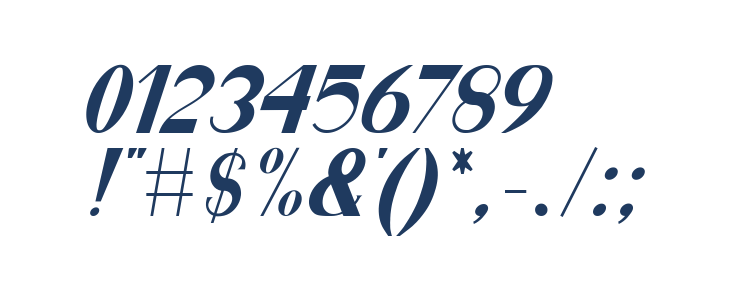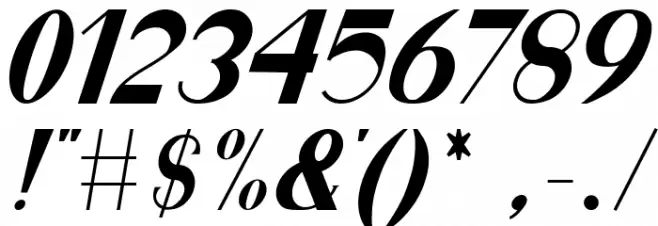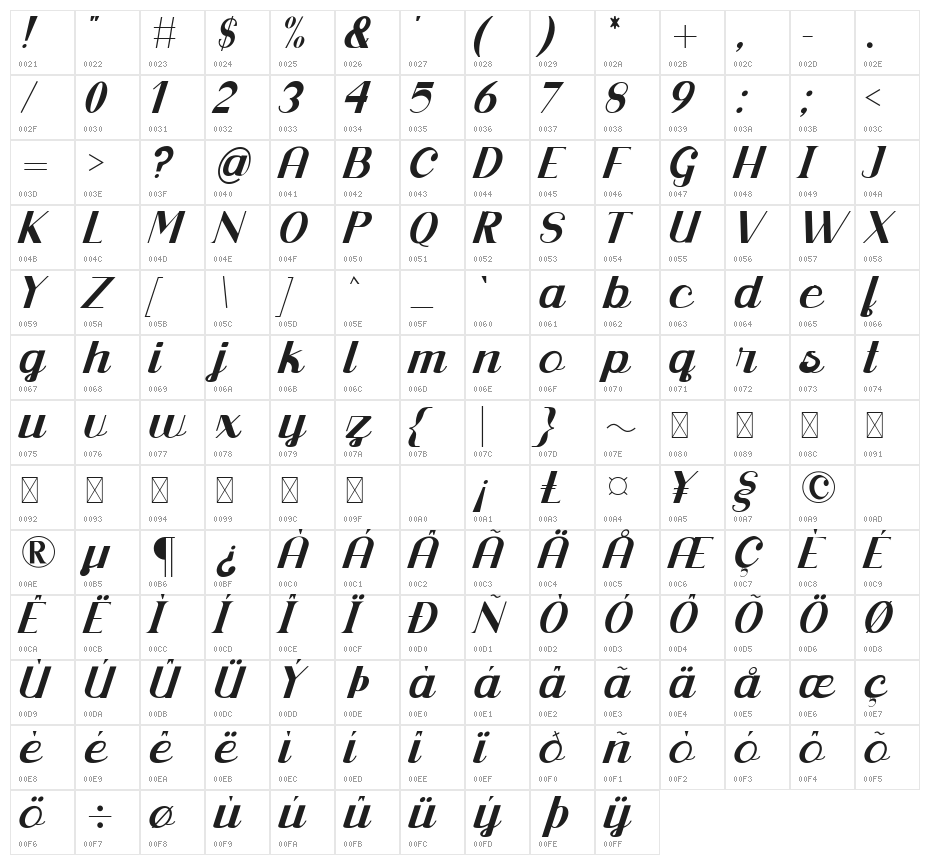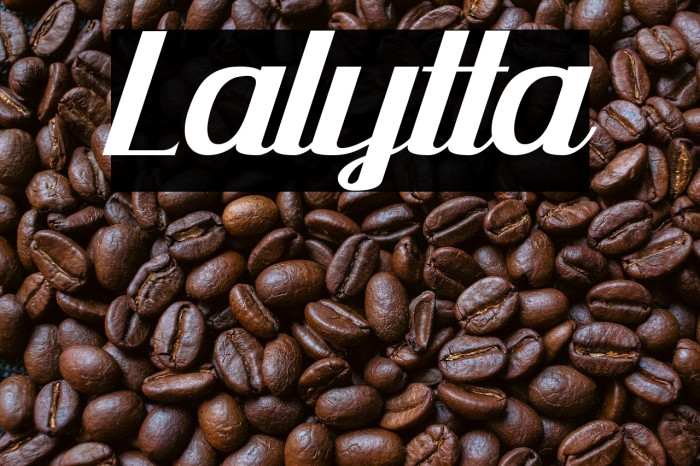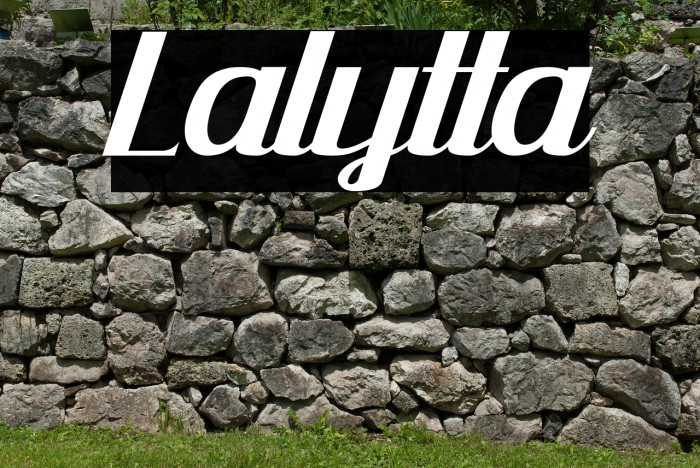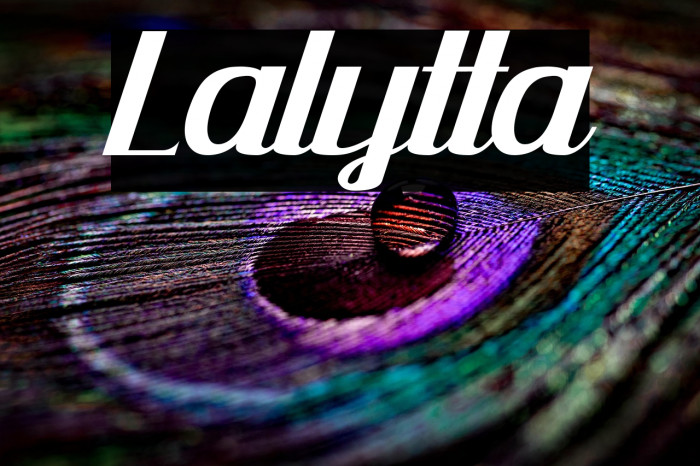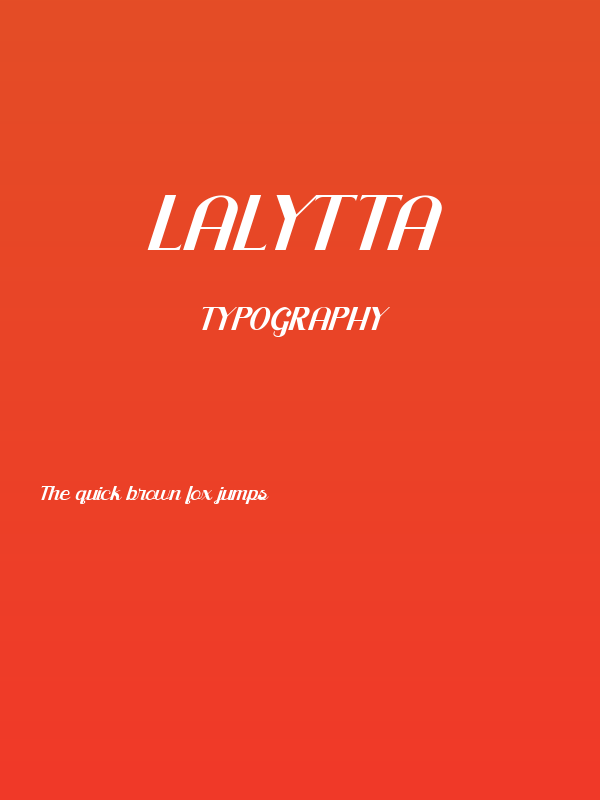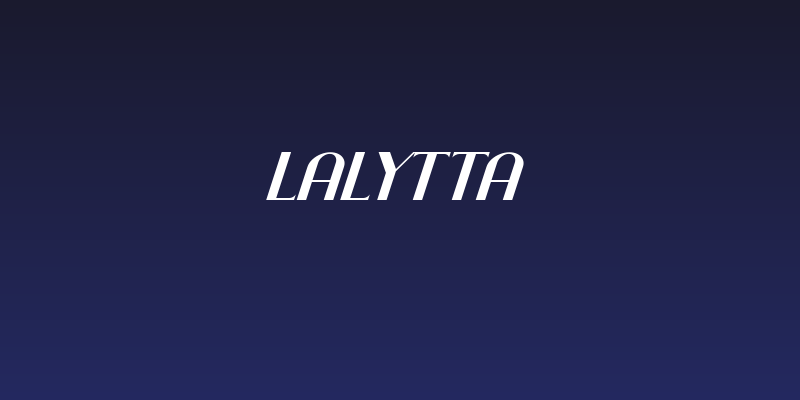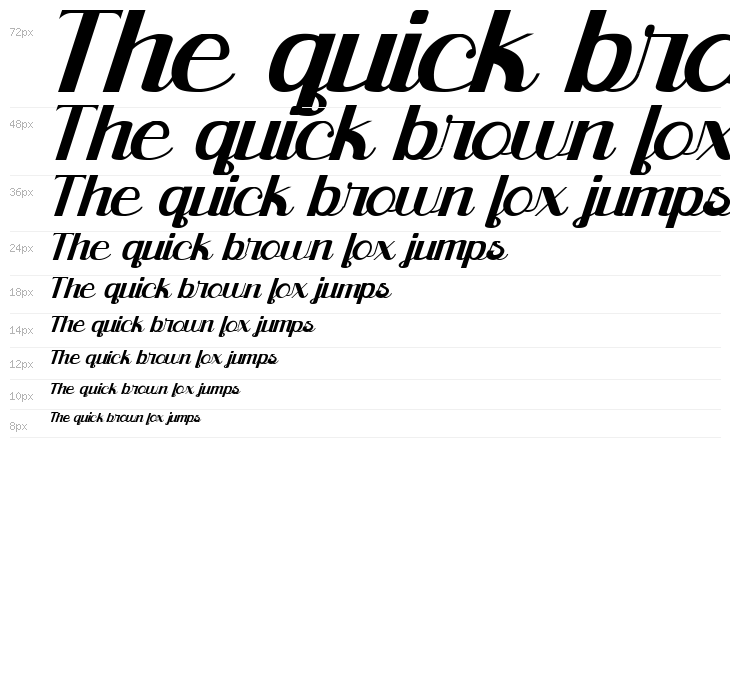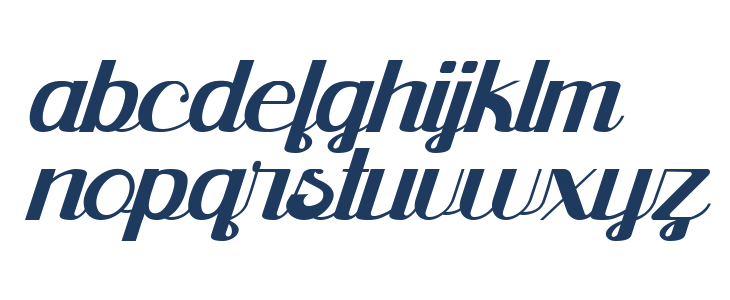
Lalytta Font
Lalytta Description
This font features a dynamic and elegant script style with a modern twist. The uppercase letters are bold and slightly slanted, giving a sense of movement and sophistication. The lowercase letters maintain a consistent flow, with smooth curves and a slight italic angle that enhances readability. The numerals are distinct and well-proportioned, matching the overall aesthetic of the font. Special characters are thoughtfully designed, maintaining the font's cohesive style. This font is perfect for projects that require a touch of elegance and modernity.
| Proposed Projects | Ideal for branding, invitations, fashion magazines, and elegant packaging. |